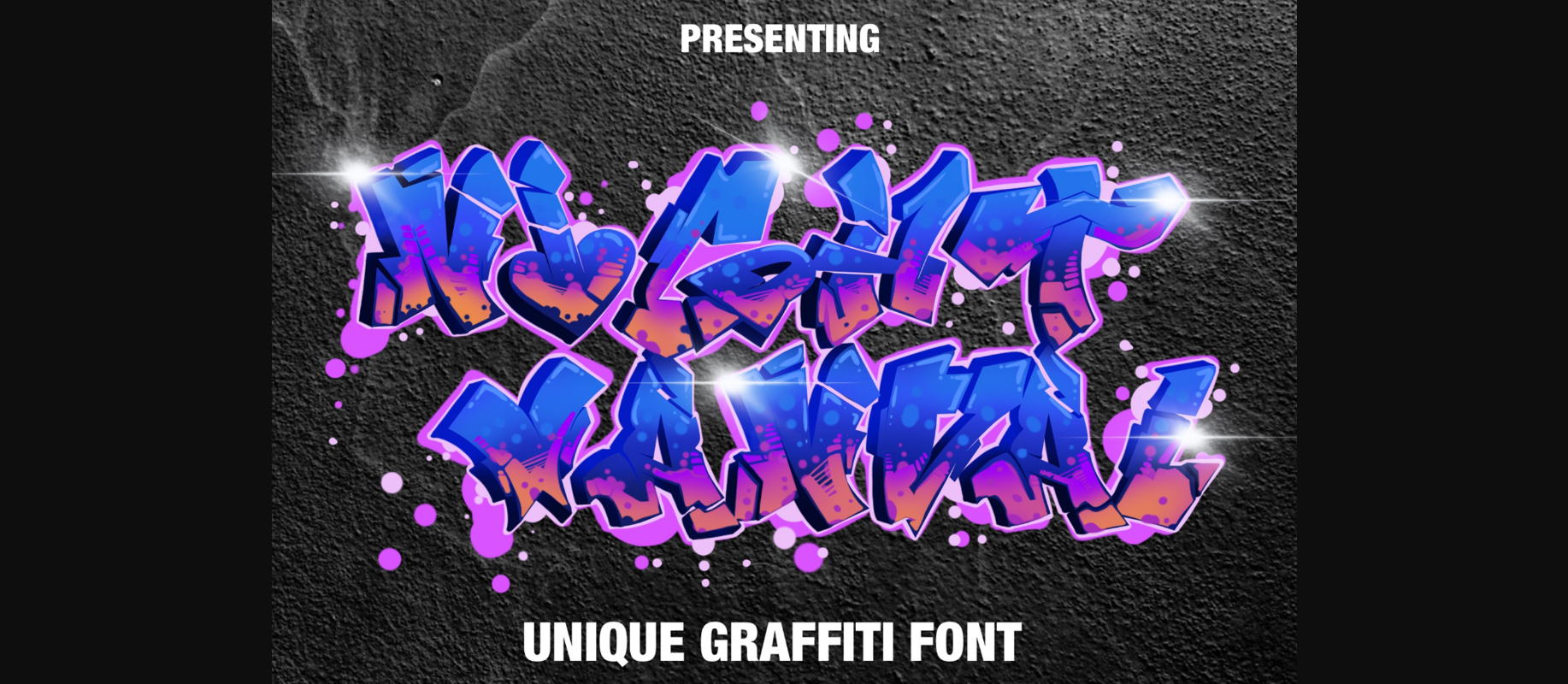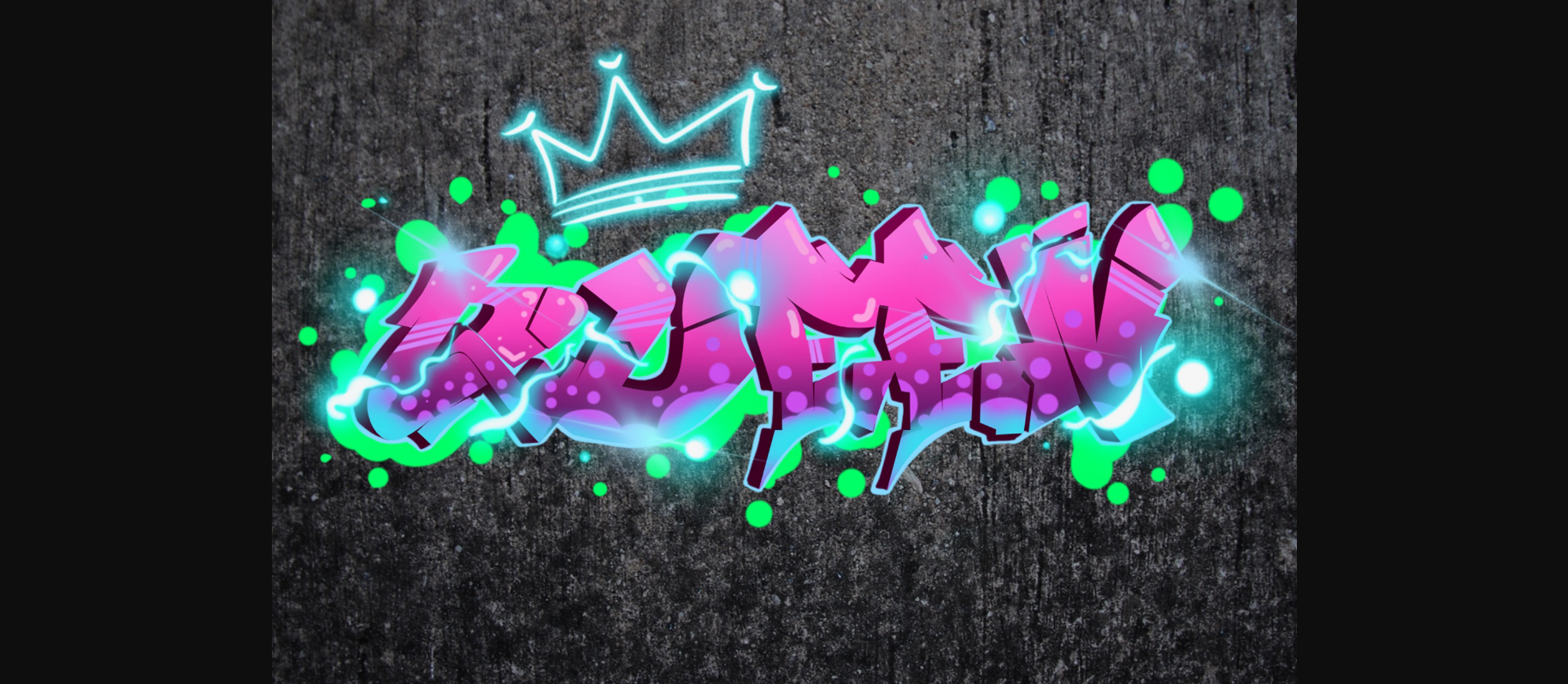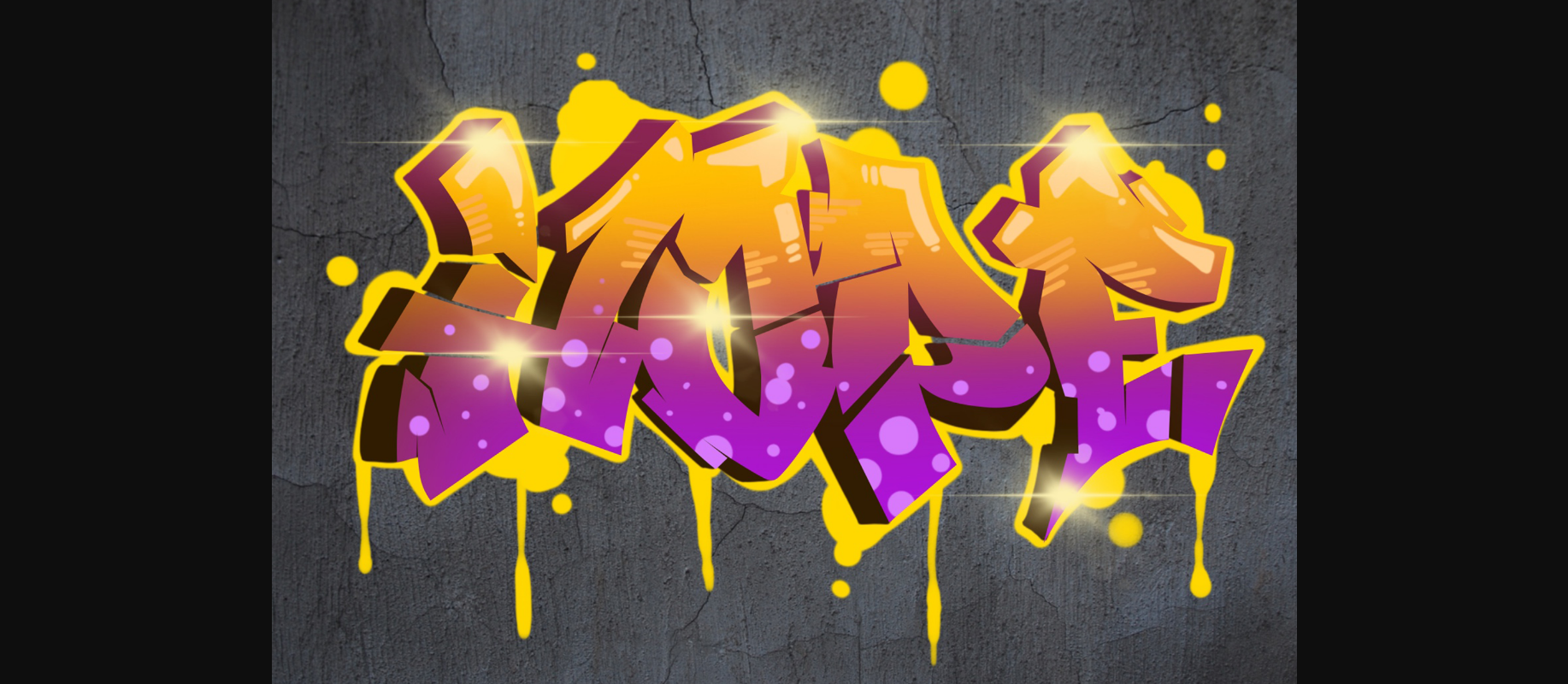
About Night Vandal Font
Night Vandal is an awesome graffiti font that features the street art vibe. This font is suitable for designs like logos, advertising, apparel, jerseys, sportswear, skateboard designs and more. Take your concepts to the next level with this stunning font!